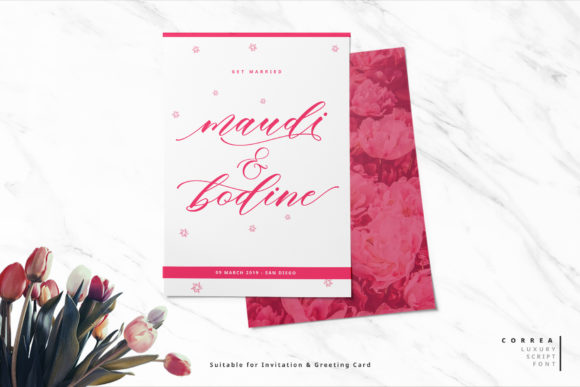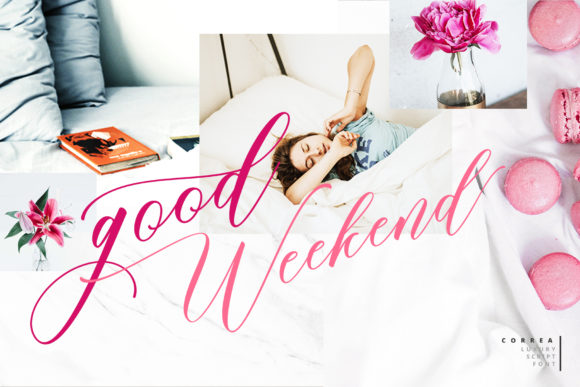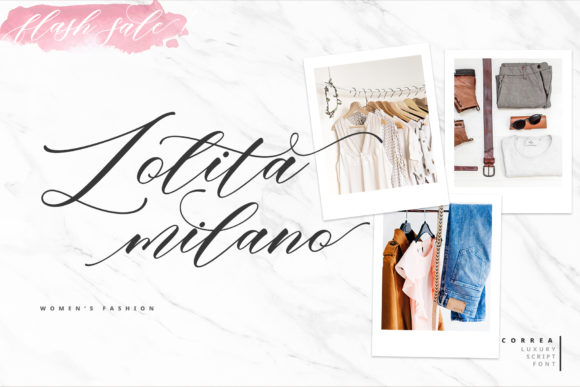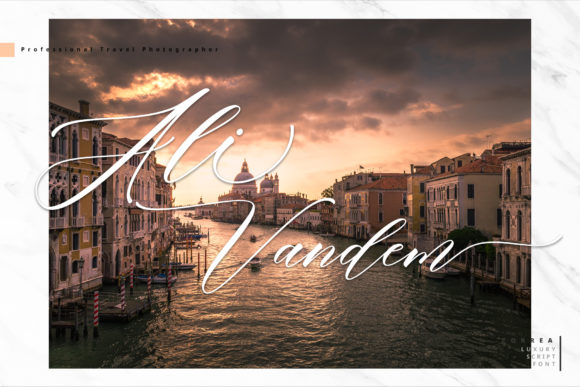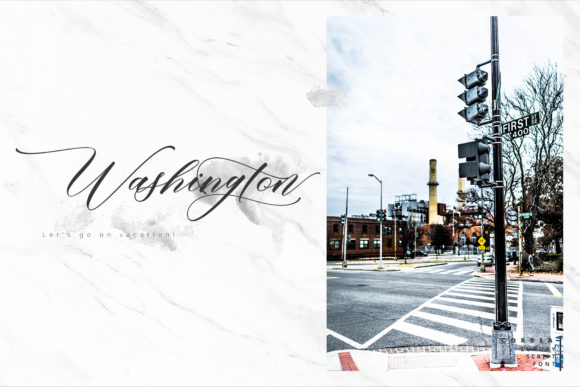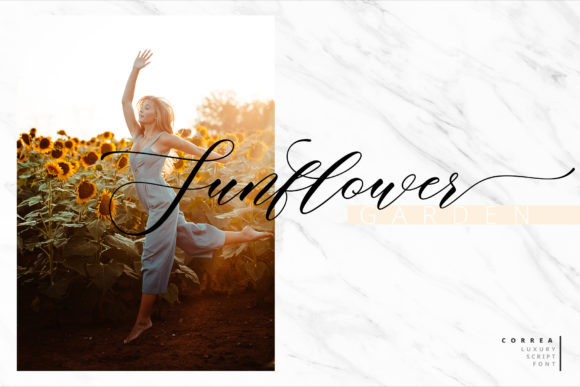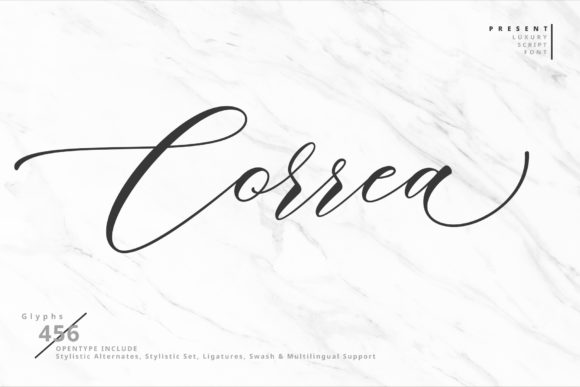
Discover the Charm of Correa Script Font: A Modern and Chic Handwritten Style
Are you a designer or crafter looking for a unique and captivating font to elevate your creative projects? Look no further than Correa Script Font, a simple yet fun handwritten font with a bold twist. This stunning font is sure to fall in love with its modern and chic style, making it perfect for a wide range of applications, from branding and advertising to crafting and DIY projects.
What Makes Correa Script Font So Special?
Correa Script Font is a carefully crafted handwritten font that exudes a sense of elegance and sophistication. Its modern and chic style is perfect for designers and crafters who want to add a touch of personality to their work. The font’s bold twist sets it apart from more traditional handwritten fonts, giving it a unique and eye-catching quality that is sure to grab attention.
One of the standout features of Correa Script Font is its versatility. Whether you’re creating a logo, a poster, or a social media graphic, this font is sure to make a statement. Its clean lines and smooth curves make it easy to read, while its bold and expressive style adds a touch of drama and flair.
The Benefits of Using Correa Script Font
So why choose Correa Script Font for your next project? Here are just a few of the benefits of using this amazing font:
- Unique and eye-catching style: Correa Script Font is a one-of-a-kind font that is sure to set your work apart from the crowd.
- Versatile and adaptable: This font is perfect for a wide range of applications, from digital projects to print materials.
- Elegant and sophisticated: Correa Script Font exudes a sense of style and refinement, making it perfect for high-end branding and advertising projects.
- Easy to read: Despite its bold and expressive style, Correa Script Font is surprisingly easy to read, making it perfect for body text and other applications where legibility is key.
How to Use Correa Script Font in Your Projects
Correa Script Font is incredibly easy to use, even for designers and crafters who are new to working with fonts. Here are a few tips for getting the most out of this amazing font:
- Pair it with a sans-serif font: Correa Script Font looks amazing when paired with a clean and simple sans-serif font, such as Arial or Helvetica.
- Use it for headlines and titles: The bold and expressive style of Correa Script Font makes it perfect for headlines and titles, where you want to grab attention and make a statement.
- Experiment with different colors and textures: Correa Script Font looks amazing in a wide range of colors and textures, so don’t be afraid to get creative and try out different combinations.
In conclusion, Correa Script Font is a simple yet fun handwritten font with a bold twist that is sure to capture your heart. Its modern and chic style makes it perfect for a wide range of applications, from branding and advertising to crafting and DIY projects. With its unique and eye-catching style, versatility, and elegance, Correa Script Font is a must-have for any designer or crafter looking to elevate their creative projects.